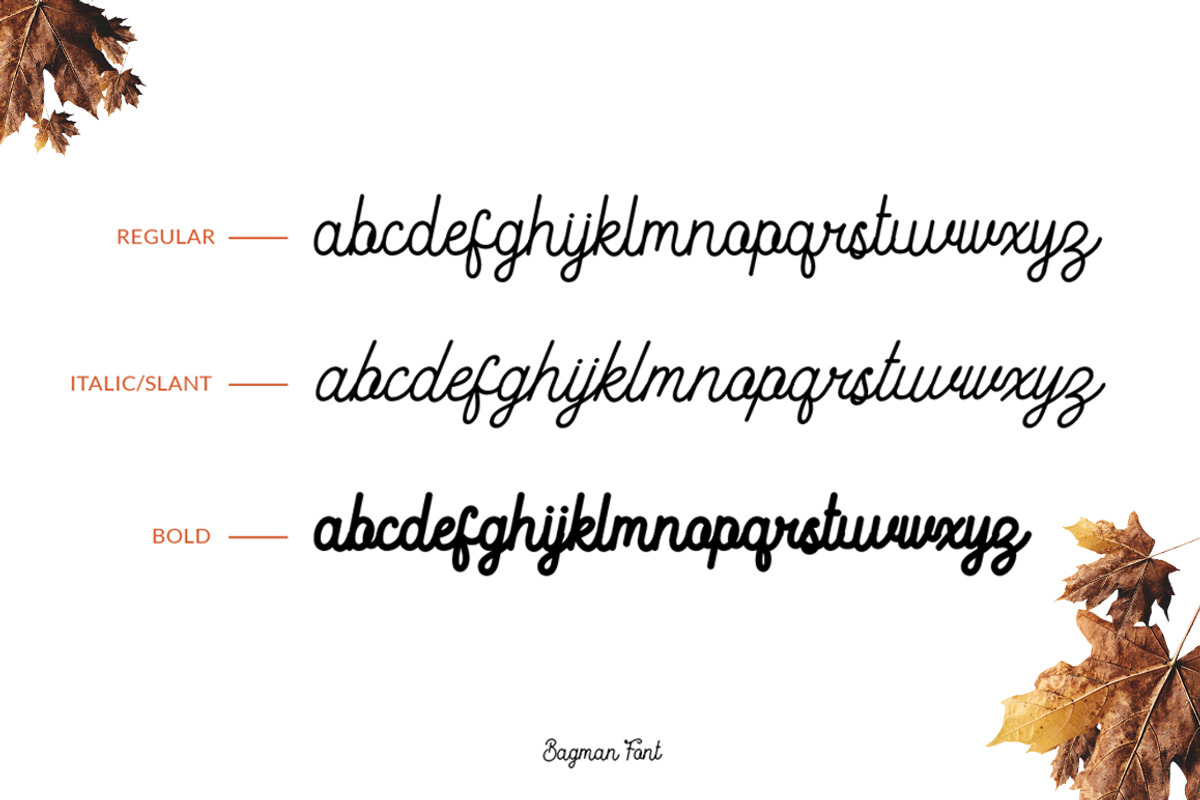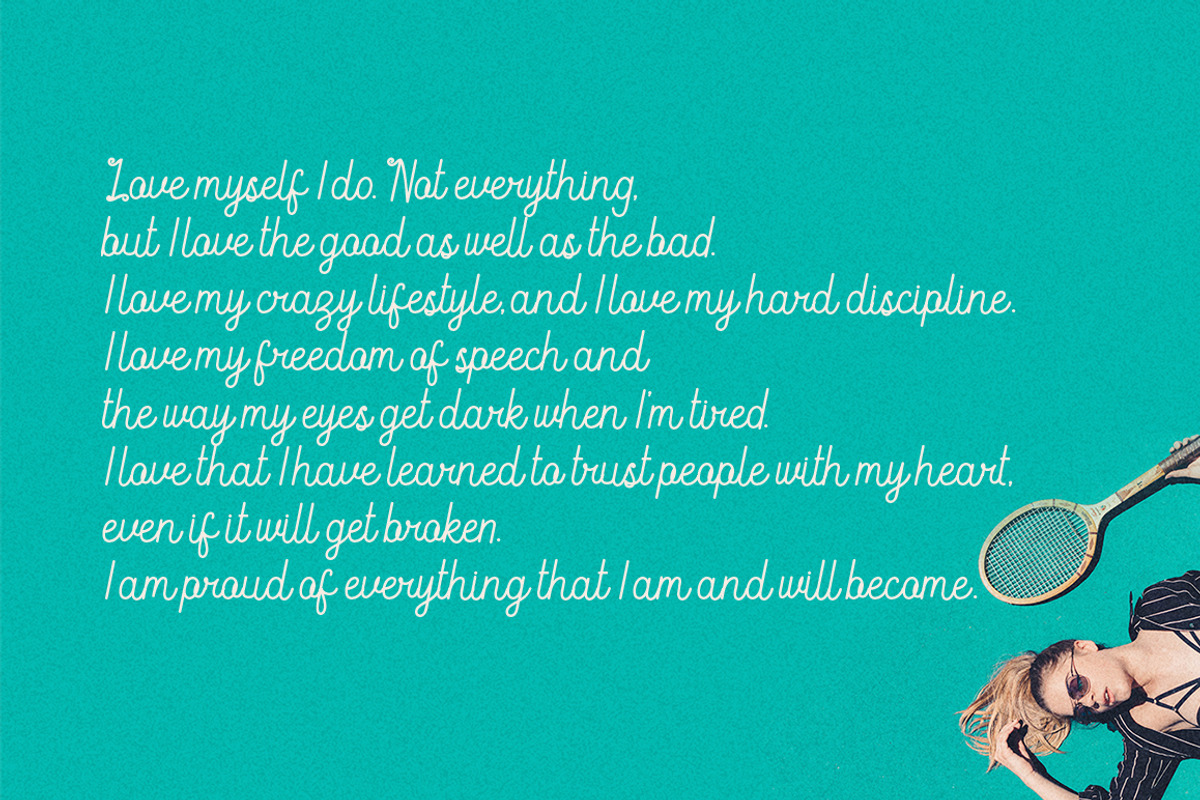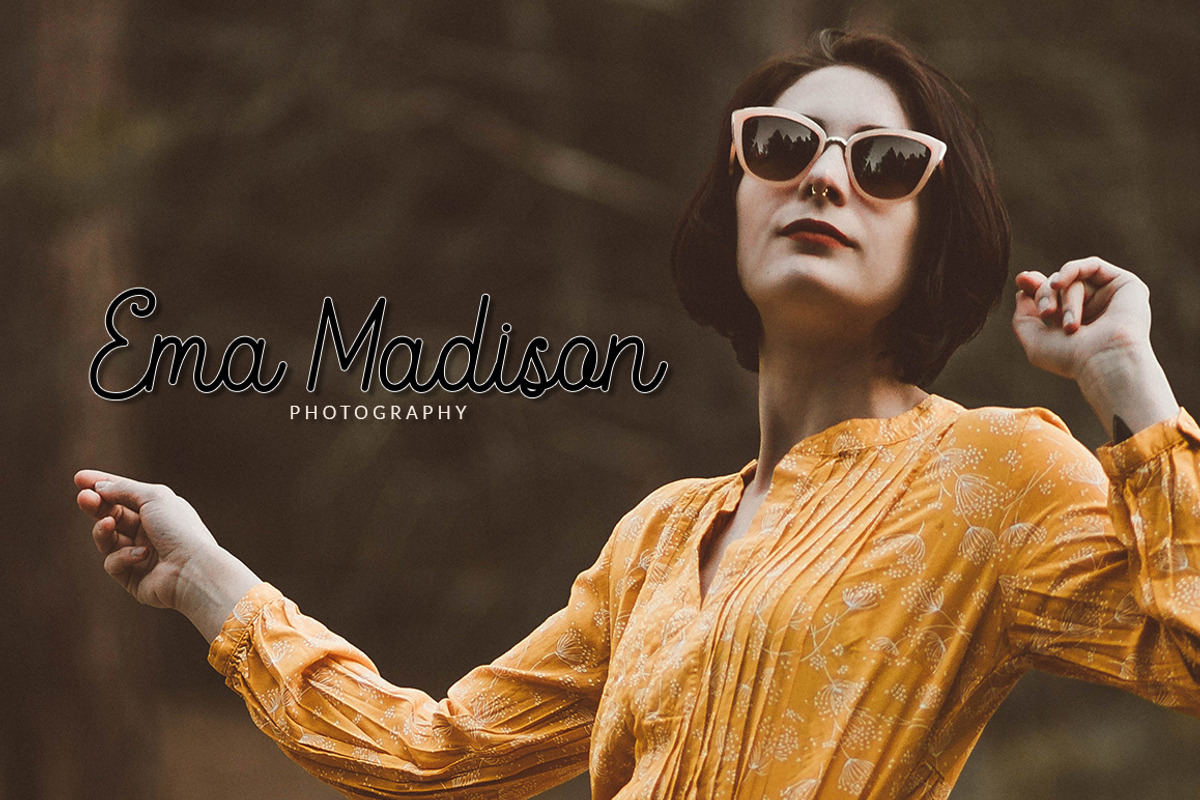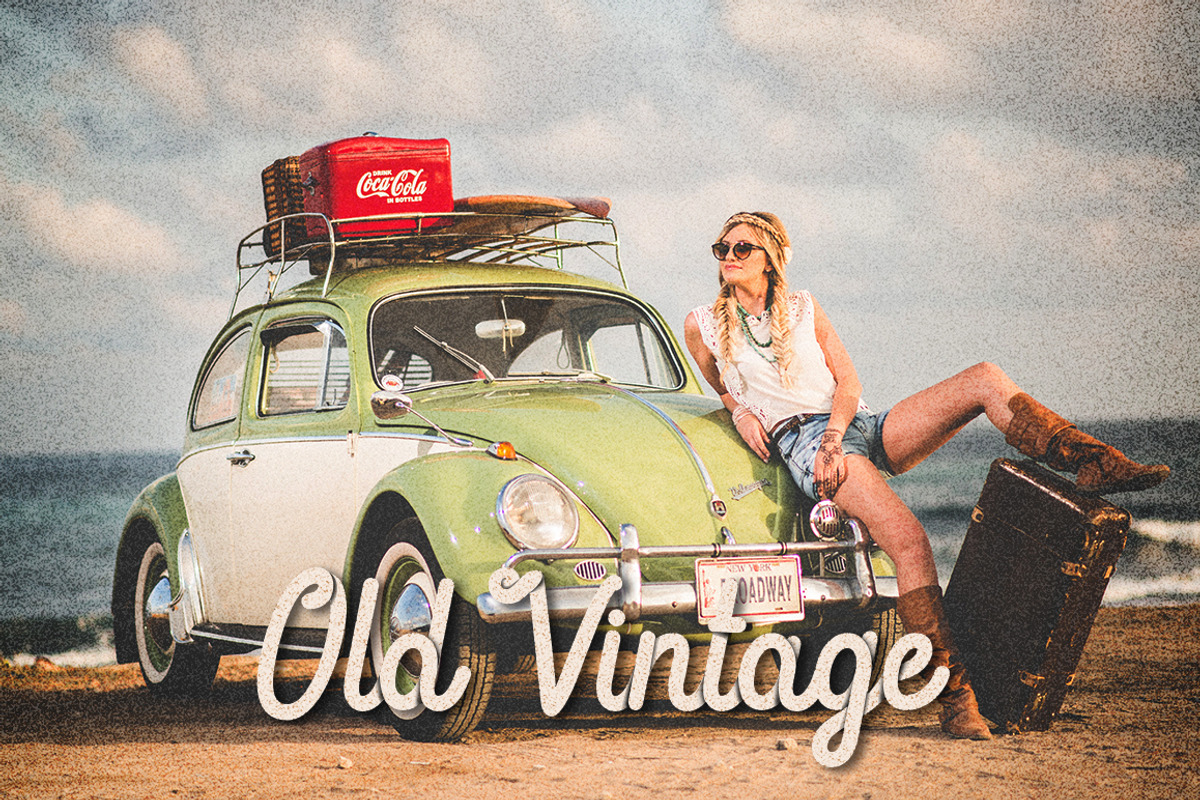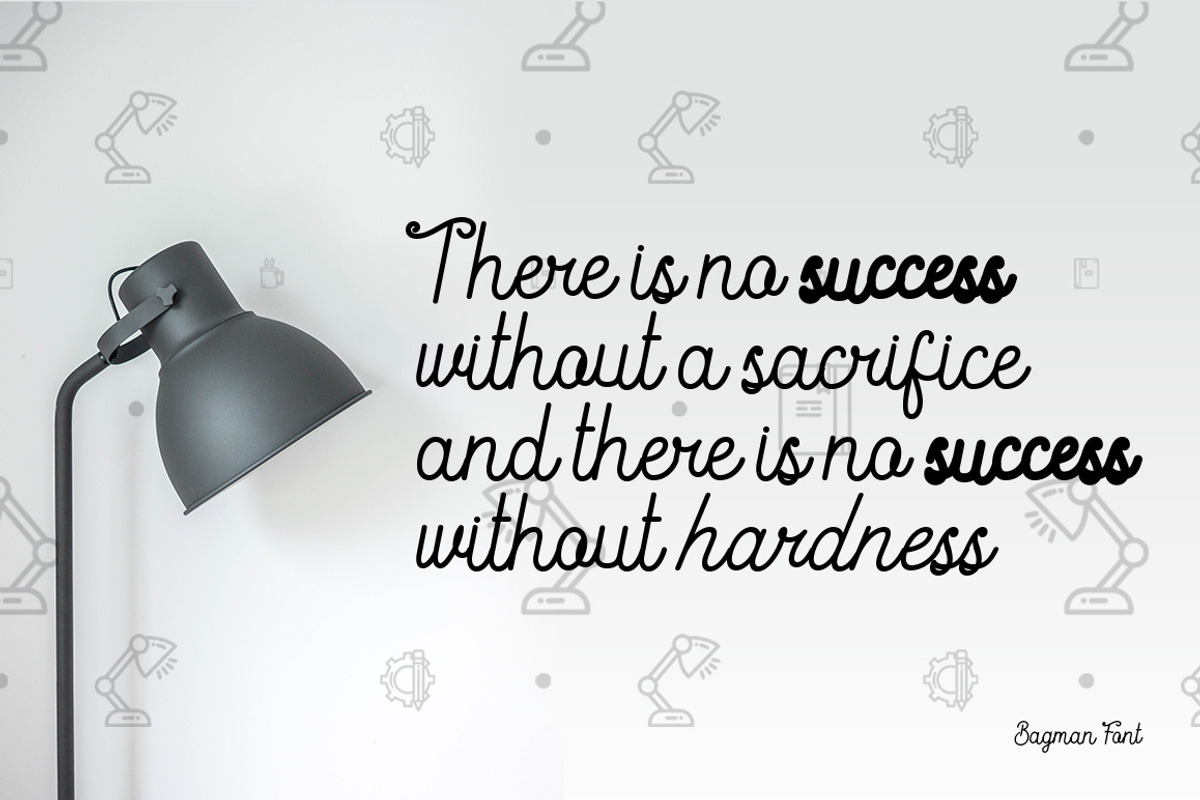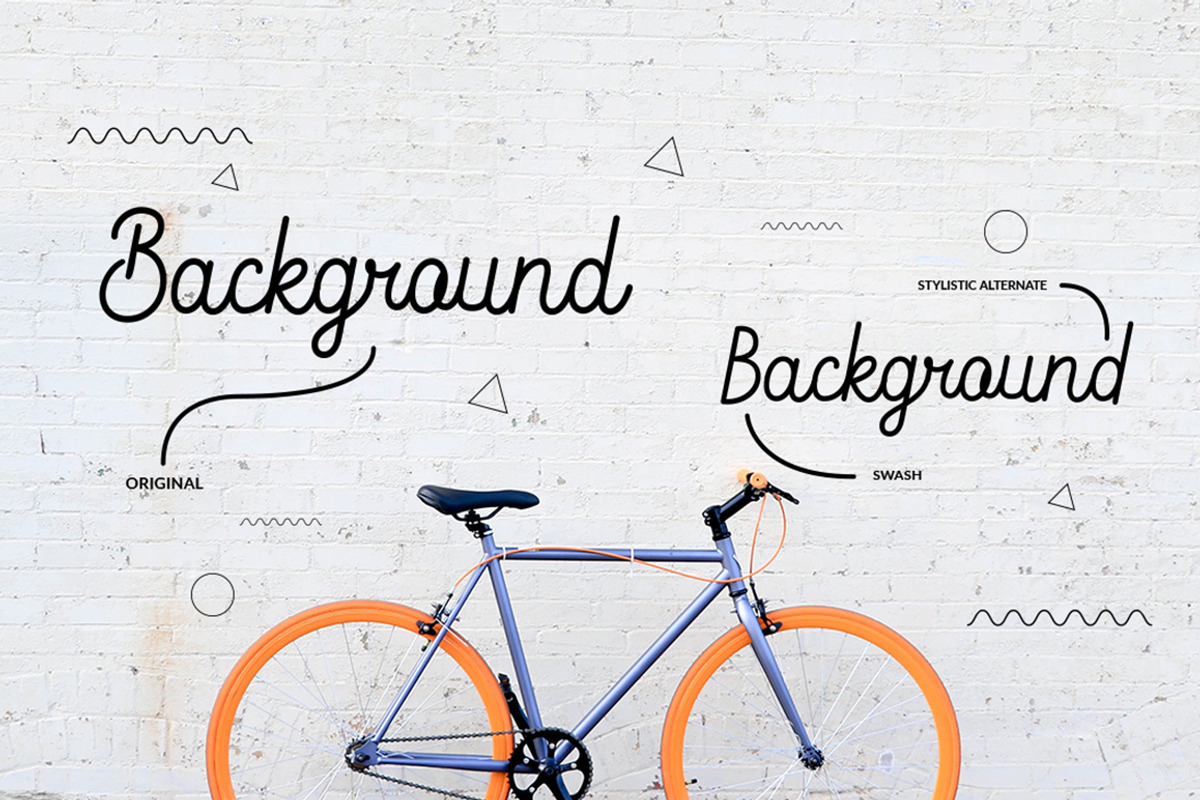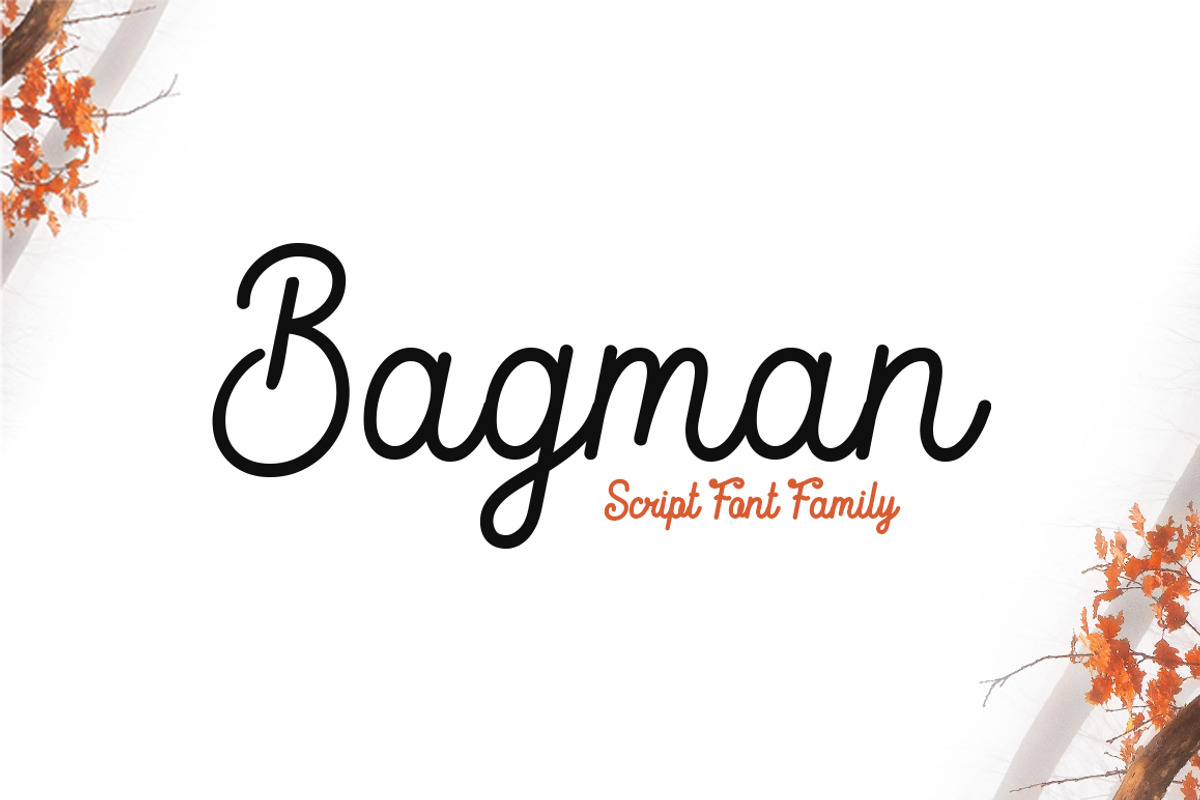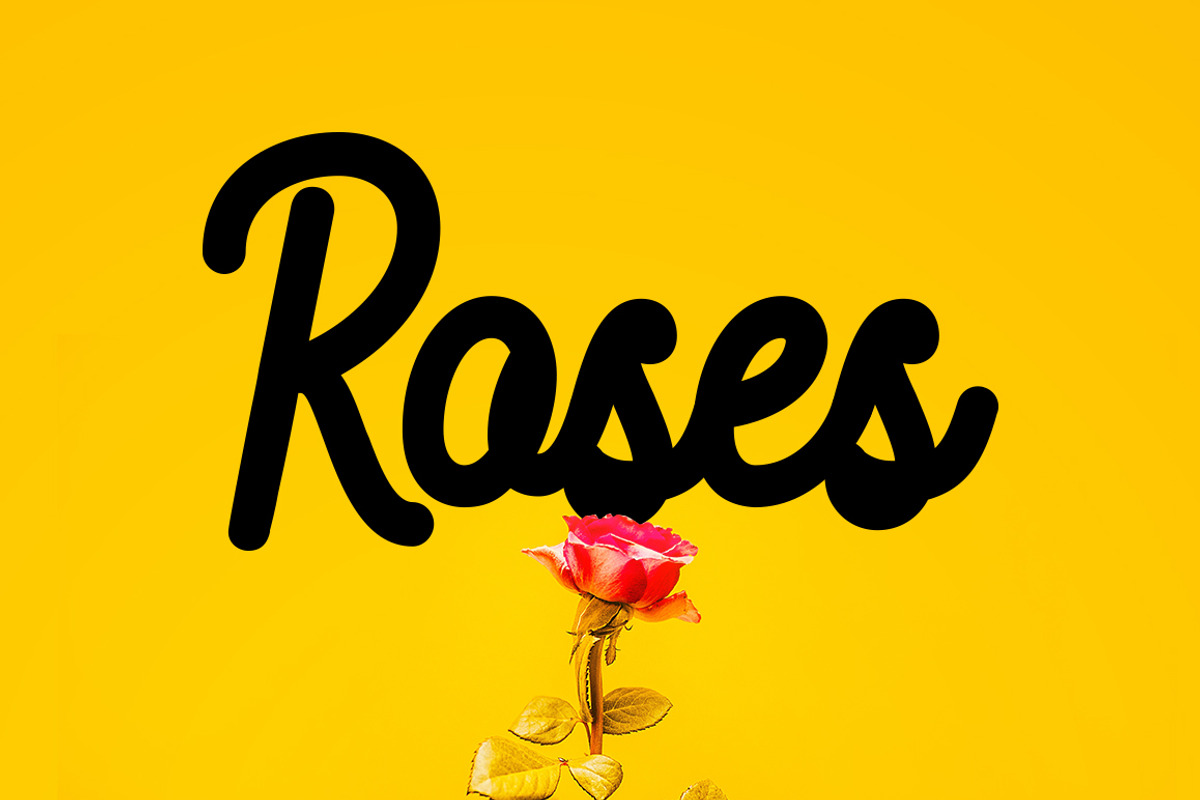
Bagman - Script Font
Bagman Script Font Family is A clean & classy signature-style font set, perfect for creating authentic hand-lettered text quickly & easily. With exaggerated strokes and an extra bouncy baseline, Bagman has an unmistakable charm; perfect for logos, headers, company or personal branding, product packaging, cards & handwritten quotes.
Bagman - Script Font by ShowUp! Studio fits naturally into Branding, posters, packaging, typography.